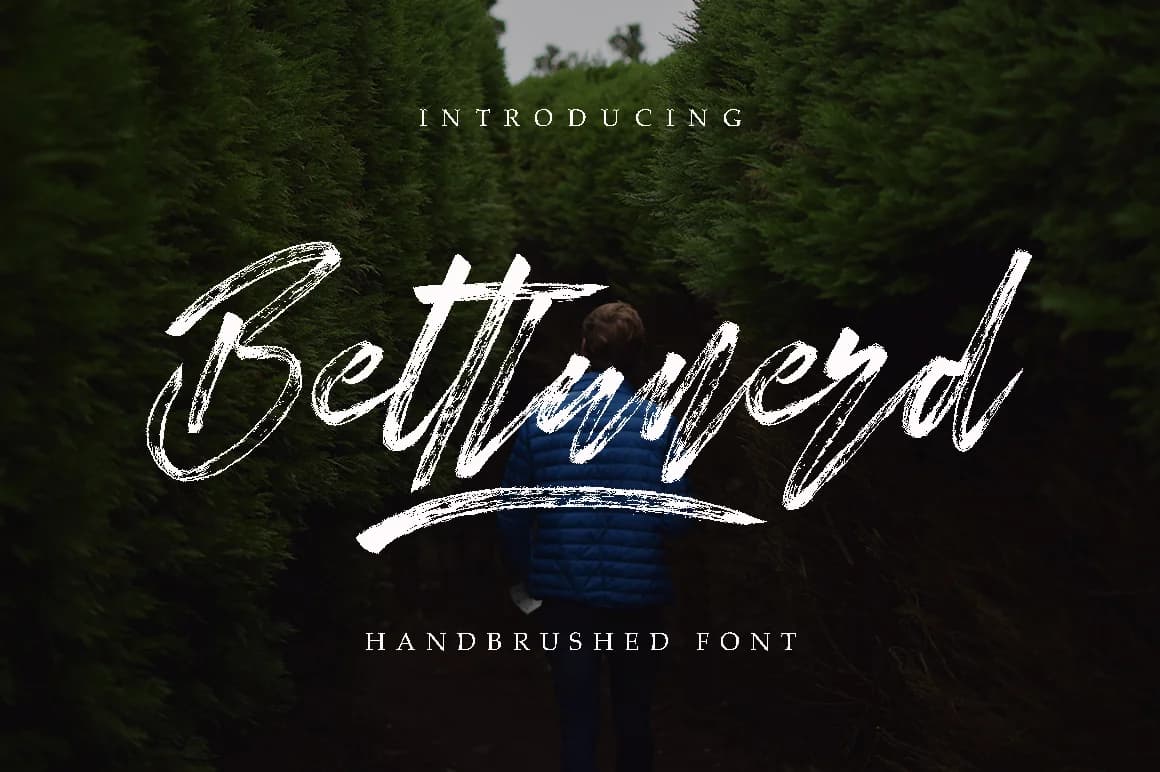
Bettlunerd by Pineungtype & Missinklab is a contemporary brush script that captures the warmth and spontaneity of hand-lettering done with intention. With organic strokes and expressive character shapes, this font brings an authentic, personal quality to any creative work. The inclusion of swash variants gives you flexibility to mix and match letterforms, creating dynamic typographic combinations that feel effortlessly customized rather than automated.
This typeface shines in applications where personality and character matter most. Use it for handmade product labels and artisan packaging that needs authentic appeal, wedding invitation suites seeking genuine warmth, social media graphics looking for genuine human connection, and greeting card typography that stands out in a mailbox. Small creative businesses particularly benefit from its ability to communicate authenticity without sacrificing legibility, whether applied to brand identity work, website headers, or printed collateral.
Bettlunerd functions beautifully as both a display font and a supporting typeface when paired with clean sans-serifs. Its expressive character and energy remain controlled enough for professional applications yet distinctive enough to command attention where it truly matters. Get Bettlunerd on Creative Fabrica and bring hand-lettered personality to your most important creative work.
Bettlunerd Font is a script font that shines as a display or heading face. Pair it with a clean sans-serif or serif font for body text β the contrast creates a clear hierarchy while the two styles stay balanced and easy to read.